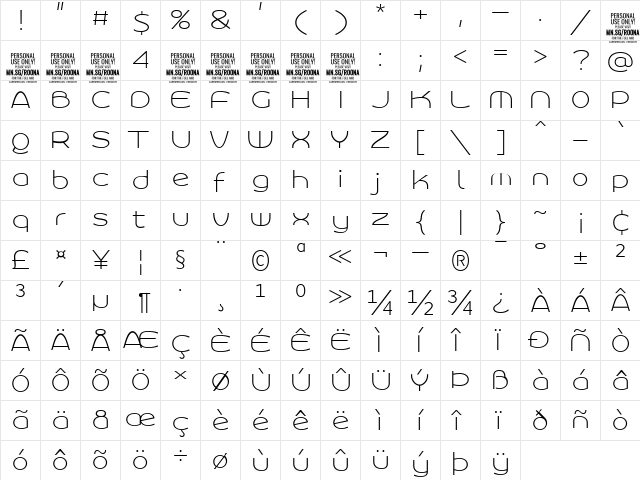
Roona Sans Thin PERSONAL Regular
| Foundry | Mans Greback |
| Designer | Mans Greback |
Design Context for Roona Sans Thin PERSONAL Typeface
Roona Sans Thin PERSONAL is a composed and adaptable typeface that performs quietly and consistently across a wide range of design contexts. The delicate stroke weight brings airiness and refinement to layouts.